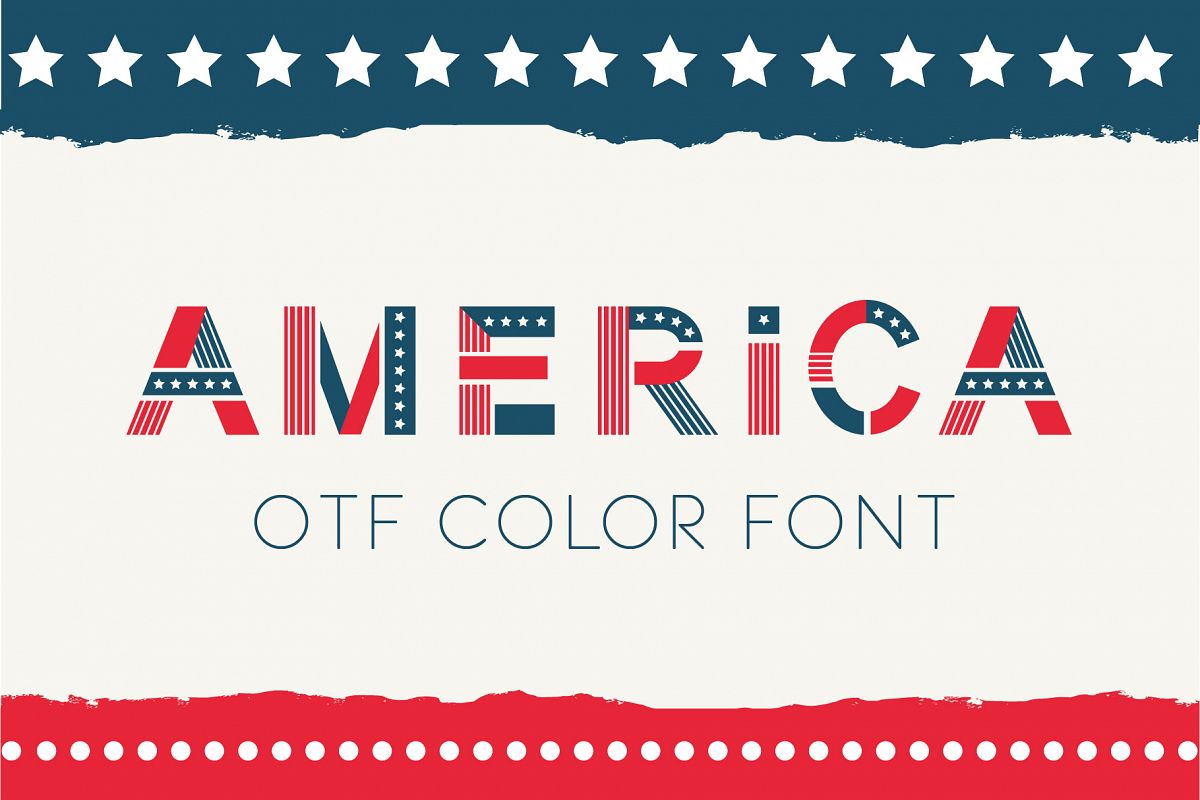
America otf color font
America
America otf color font. Letters and numbers in national flag design, stripes of red and blue, white stars ornament for festive decoration.You can use this font for design logos, quotes prints on t-shirts and other.OpenType-SVG Font was designed with Fontself Maker in Illustrator CC. Contains only uppercase letters and digits.WARNING Color fonts are pretty new technology - they currently show up in Photoshop CC 2017+, Illustrator CC 2018 and some Mac apps.